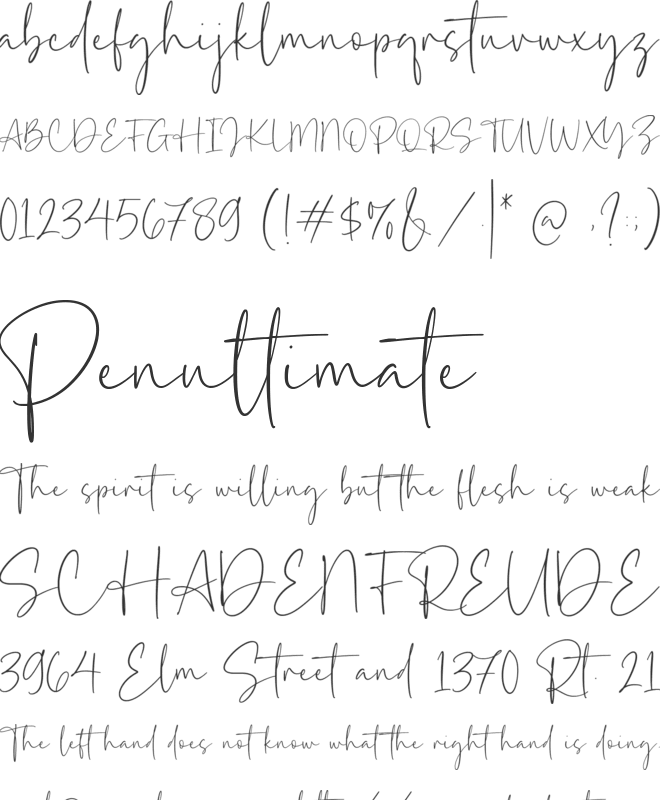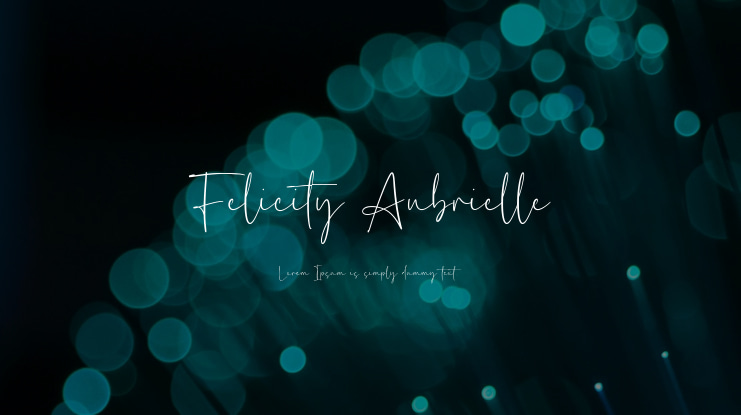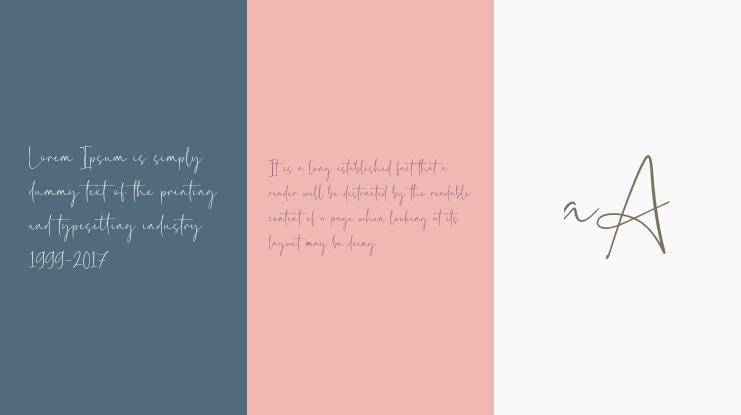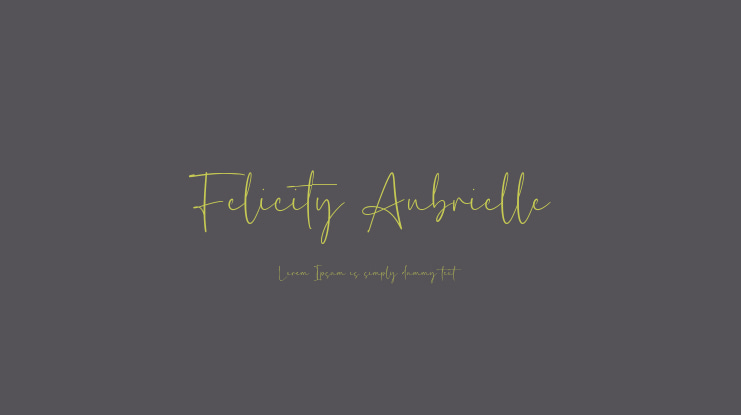
Felicity Aubrielle Font
Proudly Present Felicity Aubrielle
The display font that I created displays small Latin-shaped lines, giving it an elegant and distinctive appearance.
This font resembles Latin hand lines, capturing the essence of personalization and quartering. With its intricate details and subtle strokes, it adds a touch of sophistication and elegant style to any design or text it is applied to.
Its subtle and individualistic nature makes it perfect for creating attention-grabbing titles, logos or other elements that require a personal, handmade touch.